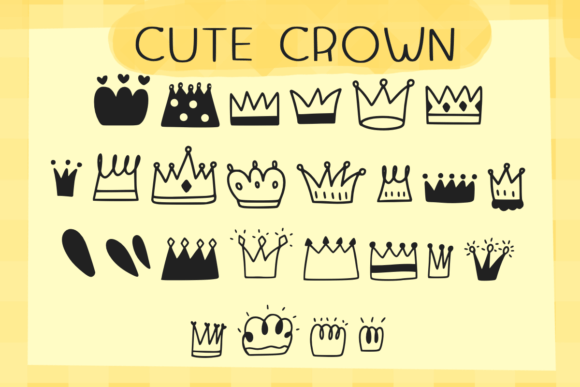
Are you tired of the same old boring fonts? Look no further, because we have the perfect solution for you! Introducing Cute Crown Font, the ultimate choice for adding a touch of cuteness and creativity to your digital ads. Created by the talented designers at Foam-Design Store, this font is a must-have for anyone looking to elevate their designs and captivate their audience.
Cute Crown Font belongs to the dingbats font family, making it unique and versatile. With its hand-drawn style, this font adds an element of whimsy and playfulness to any project. Whether you're a planner addict, a crafting enthusiast, or a digital designer, this font will be your new best friend.
Imagine the possibilities with Cute Crown Font! Create eye-catching presentations that will leave a lasting impression on your clients. Design stunning greeting cards that will make your loved ones smile from ear to ear. Add a personal touch to your digital designs and watch them come to life. This font is your secret weapon to making your creative ideas stand out from the crowd.
But what sets Cute Crown Font apart from other fonts? It's not just about the aesthetics, it's about the emotional connection it creates. This font evokes feelings of joy, warmth, and nostalgia. It makes your audience feel like they're being transported to a world of whimsy and imagination. With Cute Crown Font, you'll not only capture attention, but also evoke positive emotions that will make your brand unforgettable.